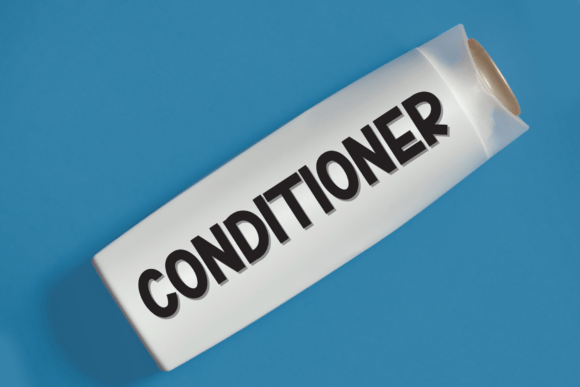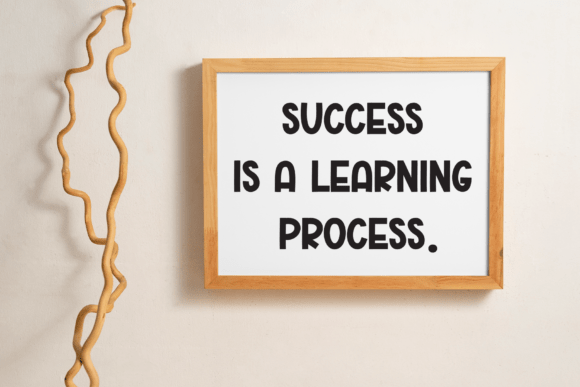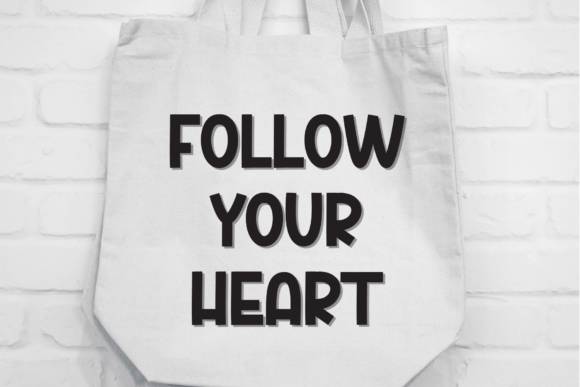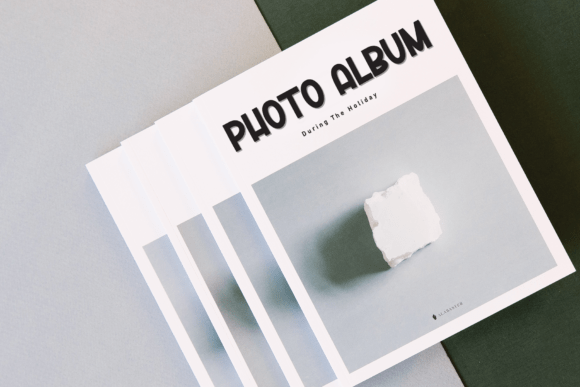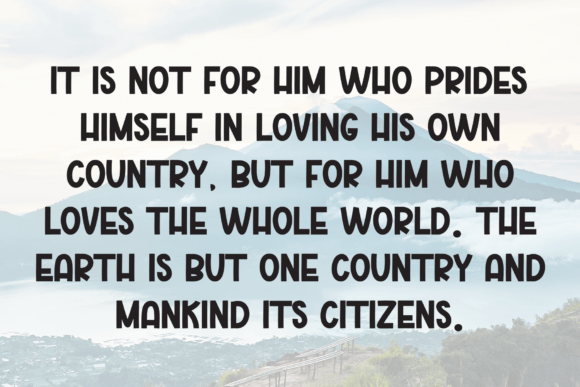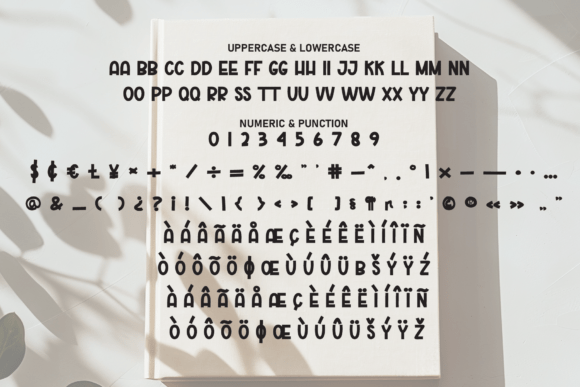
The Designer’s Delight: Book Simple Font
Have you ever been in the middle of a design project, and suddenly, you’re stuck on finding the perfect font? I recall a recent experience where I was working on a branding project for a cozy bookstore. The client wanted a font that would convey warmth and approachability, but not feel too over-the-top. After hours of searching, I stumbled upon Book Simple, and it was love at first sight! ✨
A Personal Review of Book Simple
As a designer, I’m always on the lookout for fonts that can bring a touch of personality to my projects without overwhelming them. Book Simple has quickly become one of my go-to fonts, and here’s why:
• ✅ Clean and neat structure that works well for both headlines and body text
• ✨ Warm and inviting feel that’s perfect for branding and everyday designs
• ✅ Highly readable, even at smaller font sizes
• ✅ Works well for both digital and print projects
Of course, no font is perfect, and Book Simple does have a few quirks:
• 🤔 Limited stylistic alternates, which might not offer as much flexibility for some designers
• ⚠️ Not ideal for very formal or corporate designs, as it leans more towards a casual feel
The Story Behind Book Simple
While the origins of Book Simple might not be well-documented, it’s clear that the designer aimed to create a font that feels both approachable and sophisticated. Imagine a designer, sipping coffee in a cozy bookstore, brainstorming ideas for a font that captures the essence of a casual yet charming atmosphere. That’s Book Simple in a nutshell!
Font Name Book Simple Font
Author Robbots stores
Q: What type of projects is Book Simple best suited for? A: Book Simple is versatile and works well for branding, headlines, and everyday designs where a warm and inviting feel is desired.
Q: Does Book Simple support OpenType features? A: Yes, Book Simple supports OpenType features, including ligatures and stylistic alternates, which can be accessed in compatible design software.
Q: Is Book Simple suitable for body text? A: Yes, Book Simple is highly readable and can be used for body text, especially in digital and print projects where a friendly tone is beneficial.